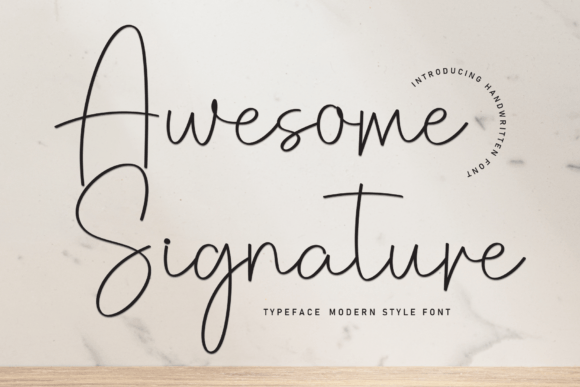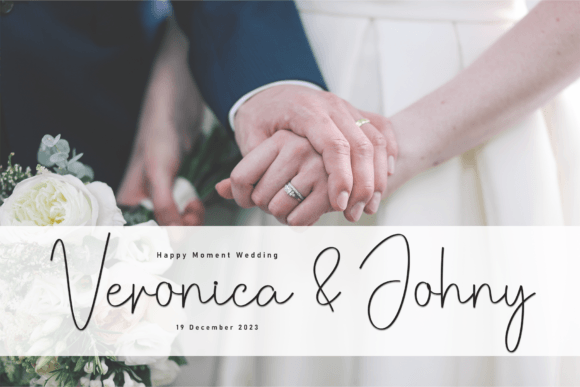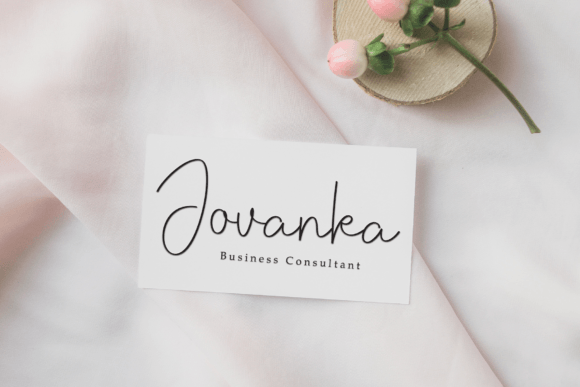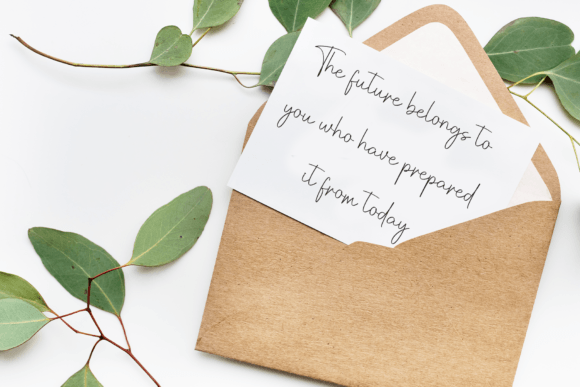
Awesome Signature Font
About the Awesome Signature Font
Elevate your designs with Awesome Signature Font, a font that combines sophistication with readability. With its smooth and flowing lines, this font captures a sense of grace and charm, making it ideal for adding a personal touch to documents, invitations, or any creative project. Its simplicity and versatility make it a popular choice for individuals seeking a classic and timeless signature font.
Awesome Signature Font excels in applications requiring a touch of elegance and personality, such as wedding invitations, logos for boutique businesses, or short, impactful headlines. Its flowing forms are less suitable for body text or lengthy paragraphs, where readability suffers. Avoid using it in UI contexts or situations demanding high legibility at small sizes.
This font’s core personality is sophisticated yet approachable. It projects a sense of refined charm. To complement this, consider pairing it with a clean sans-serif like Lato for body copy or a modern serif like Garamond for a more traditional feel. A simple geometric sans-serif would also create a pleasing contrast, offering a contemporary edge.
For a playful twist, a handwritten script font could work, but choose one with a similar level of refinement to avoid clashing styles. Avoid pairing it with overly bold or aggressive fonts which would detract from its inherent grace.